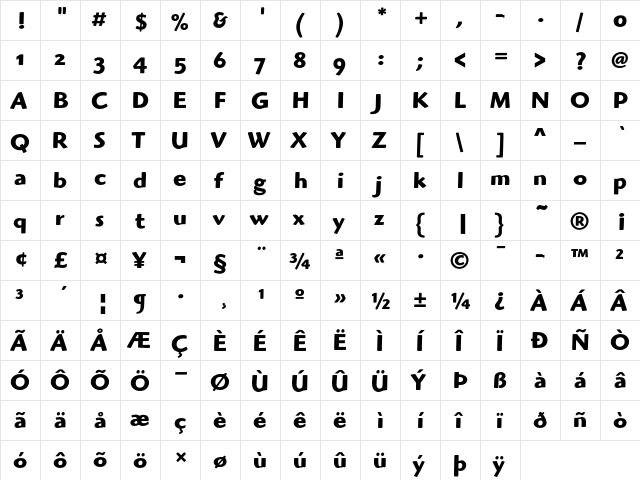
Highlander ITC Bold OS Font Preview
Highlander ITC Bold OS
Design Context for Highlander ITC Typeface
Highlander ITC takes a measured approach to typography — its balanced proportions and neutral character make it a reliable workhorse for both digital and print work. The heavy weight commands attention and anchors typographic hierarchies.